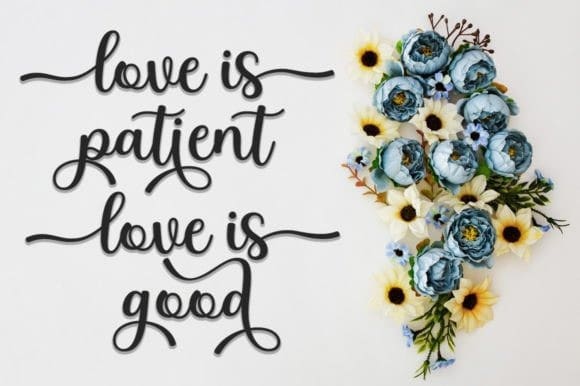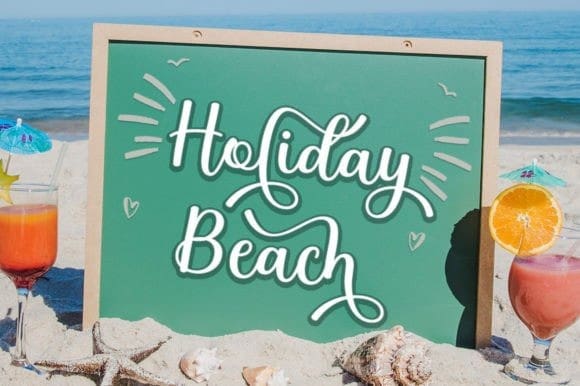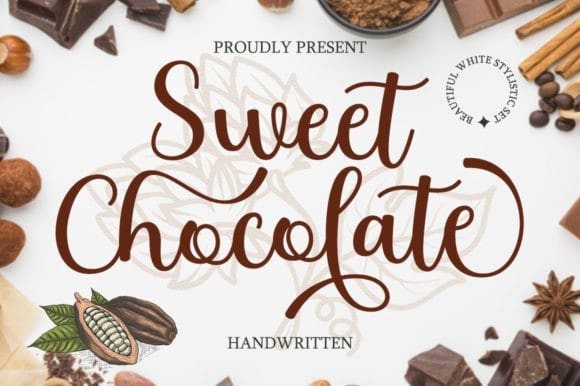
Sweet Chocolate Font
Sweet Chocolate Font is a gorgeous handwritten script font. This versatile script font has a wide spectrum of applications ranging from greeting cards to headlines and is guaranteed to add a romantic feel to your next project.